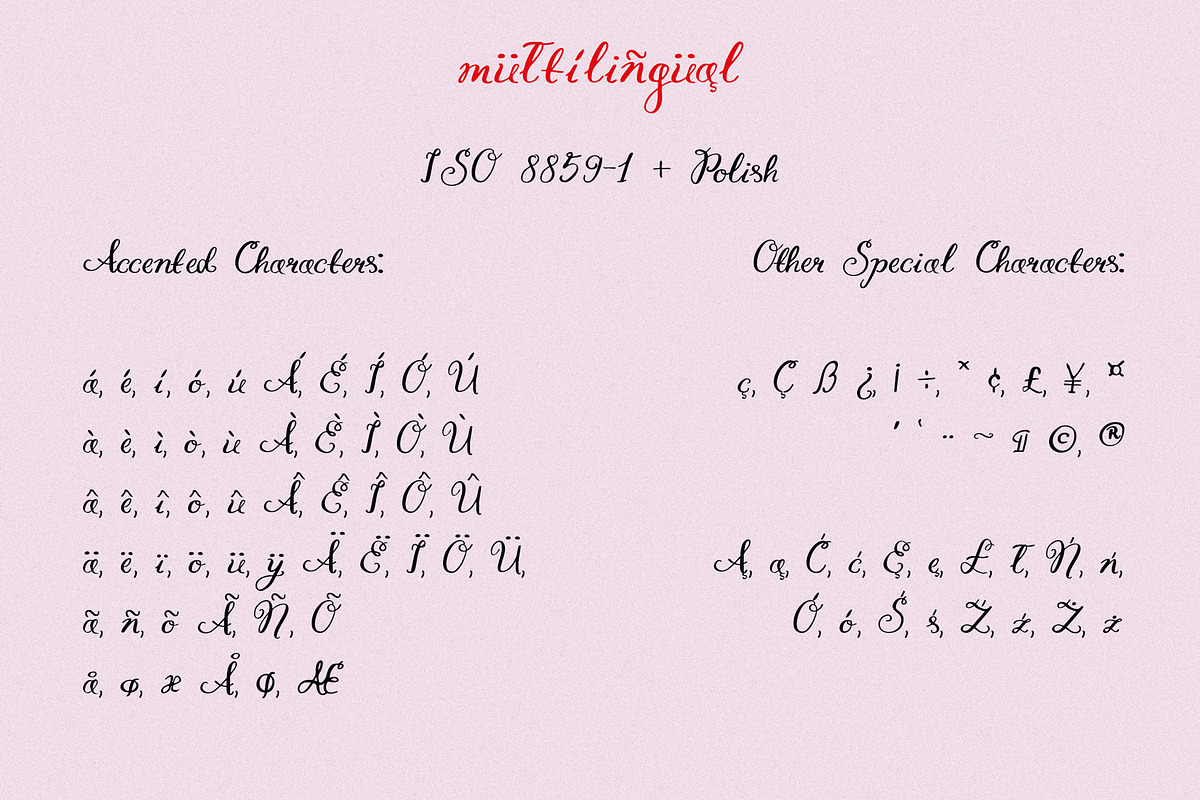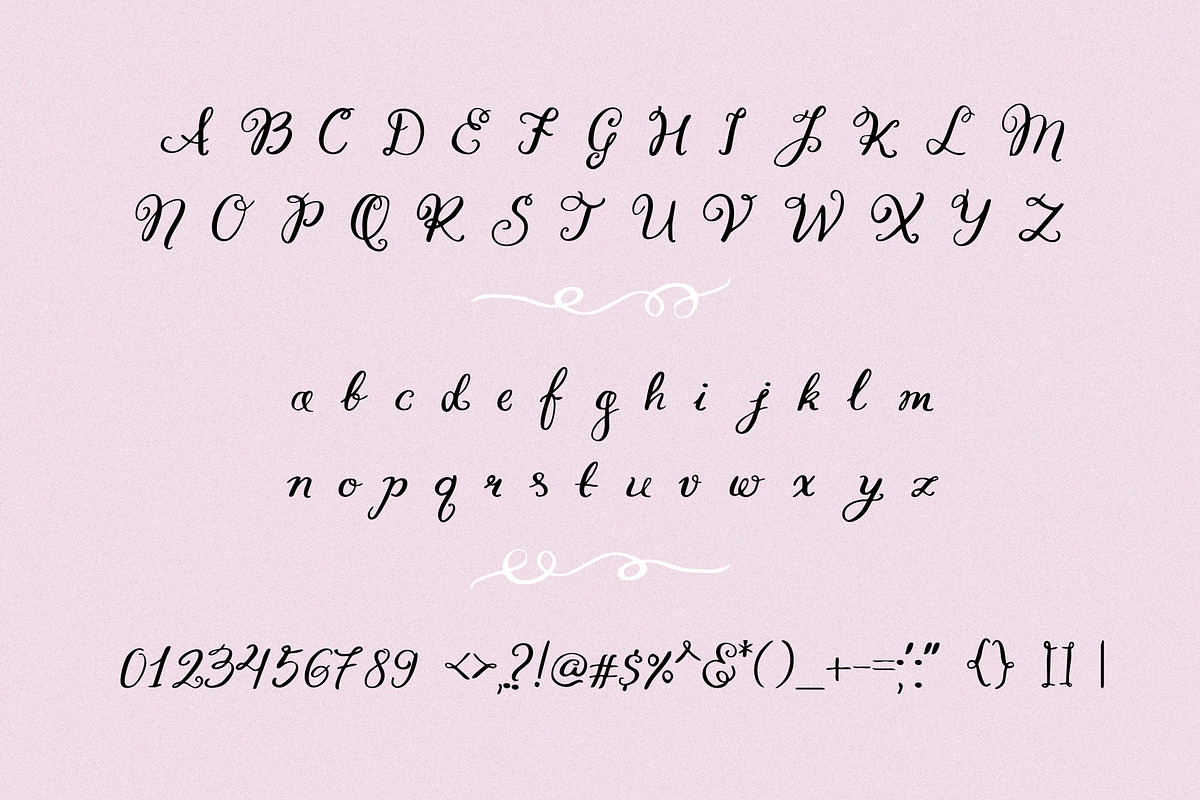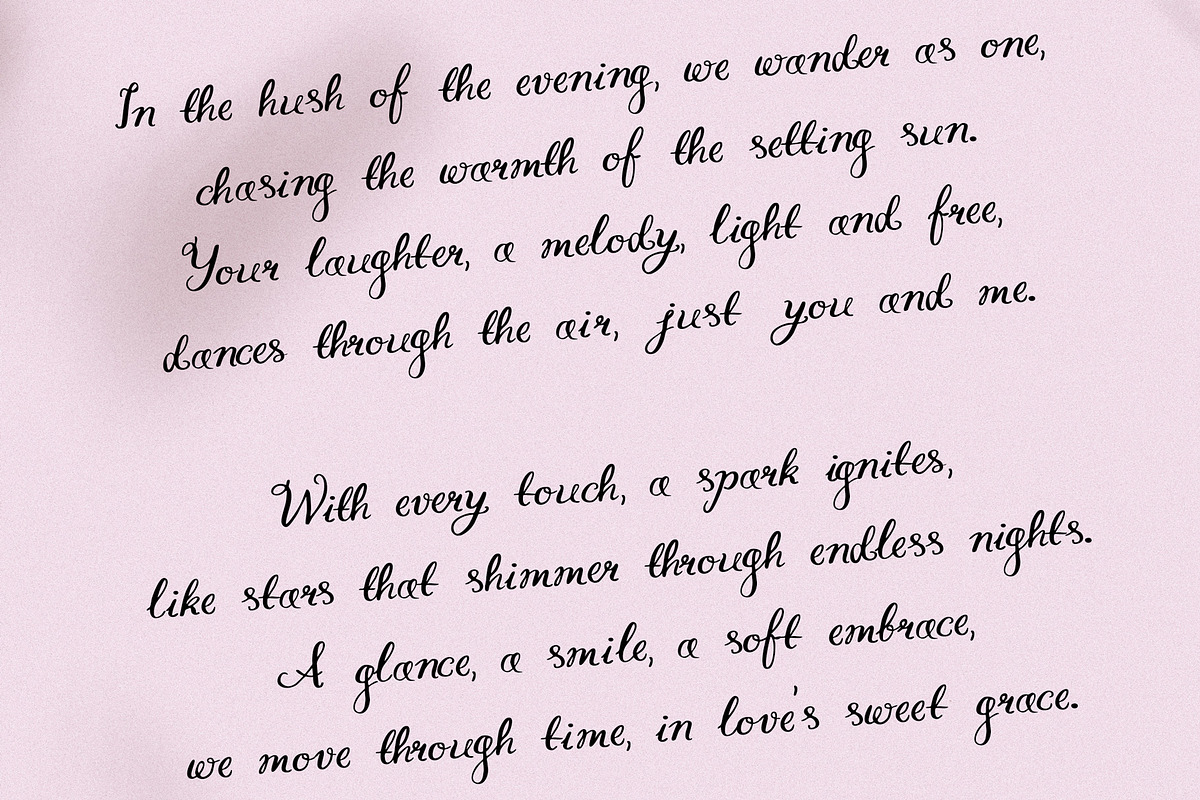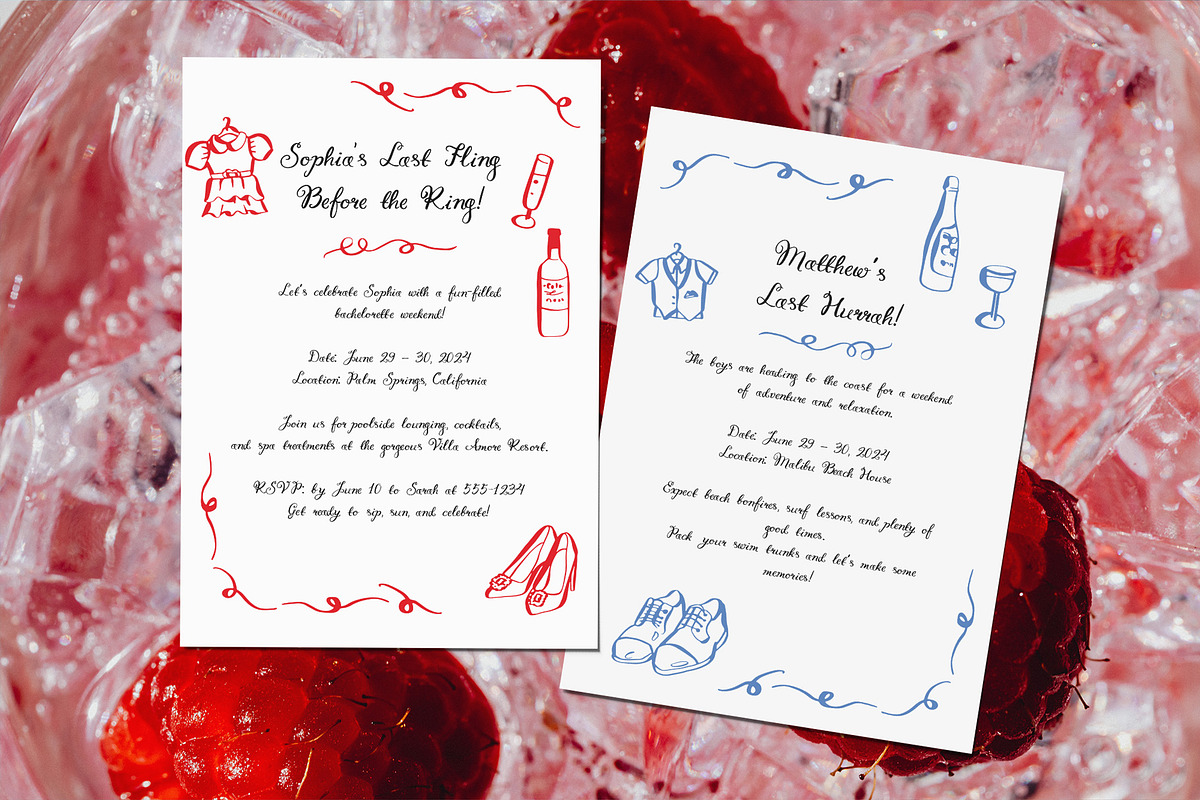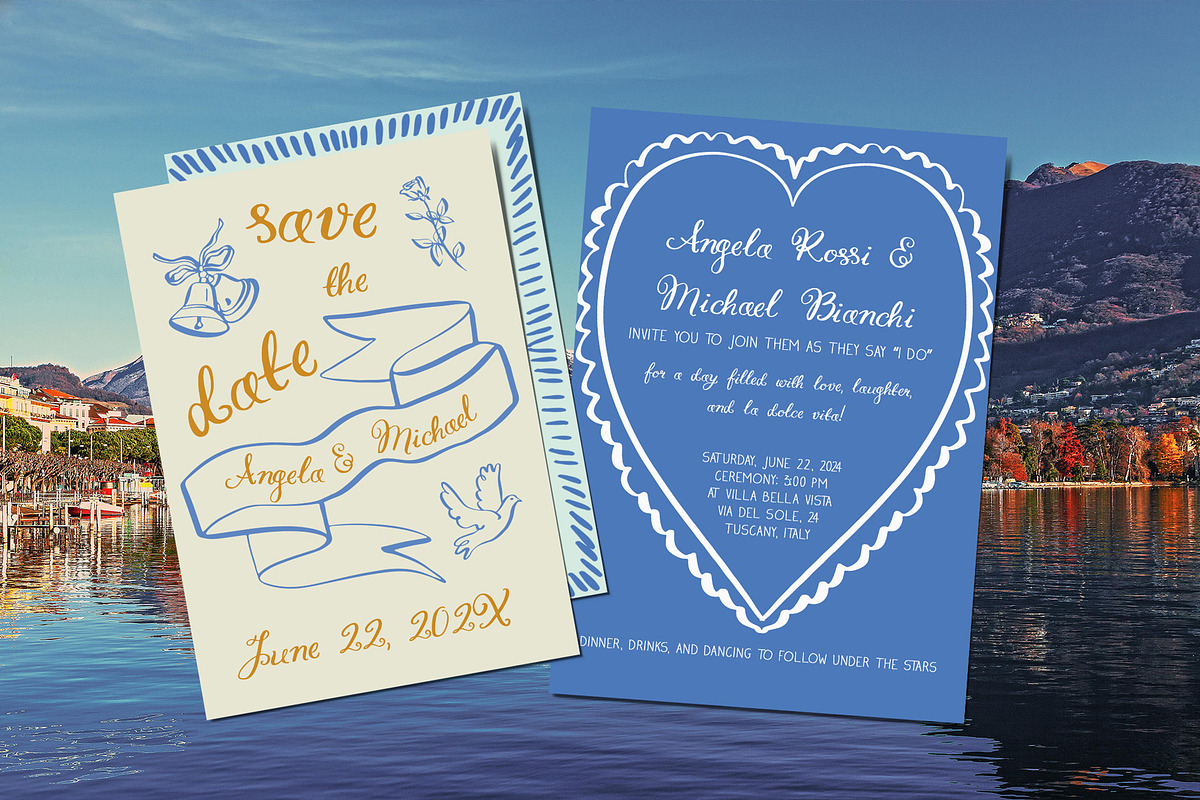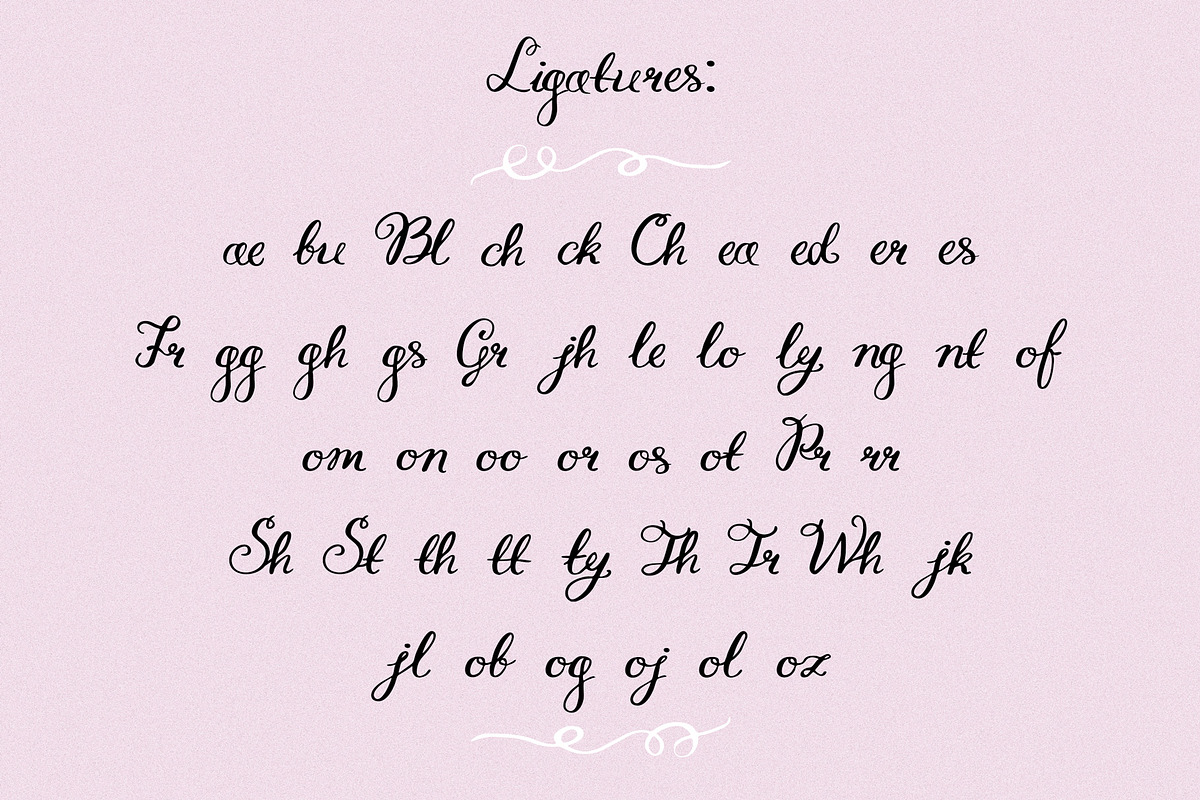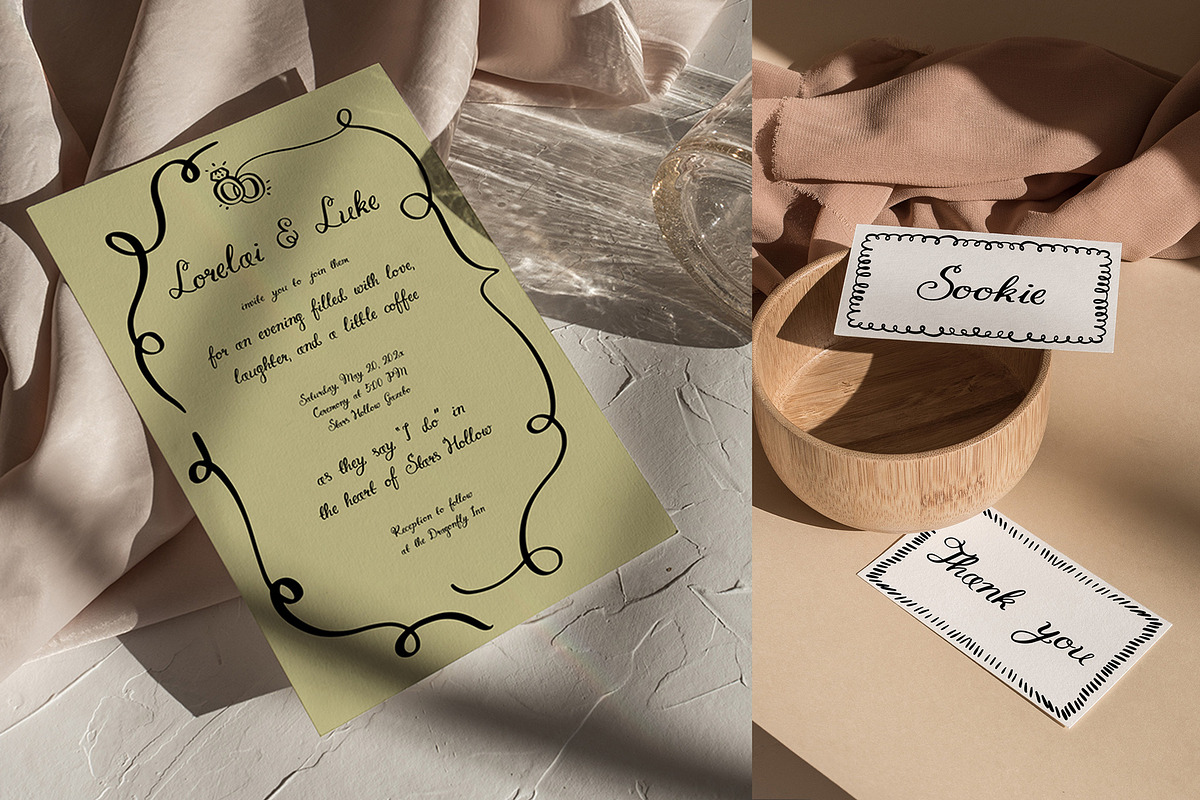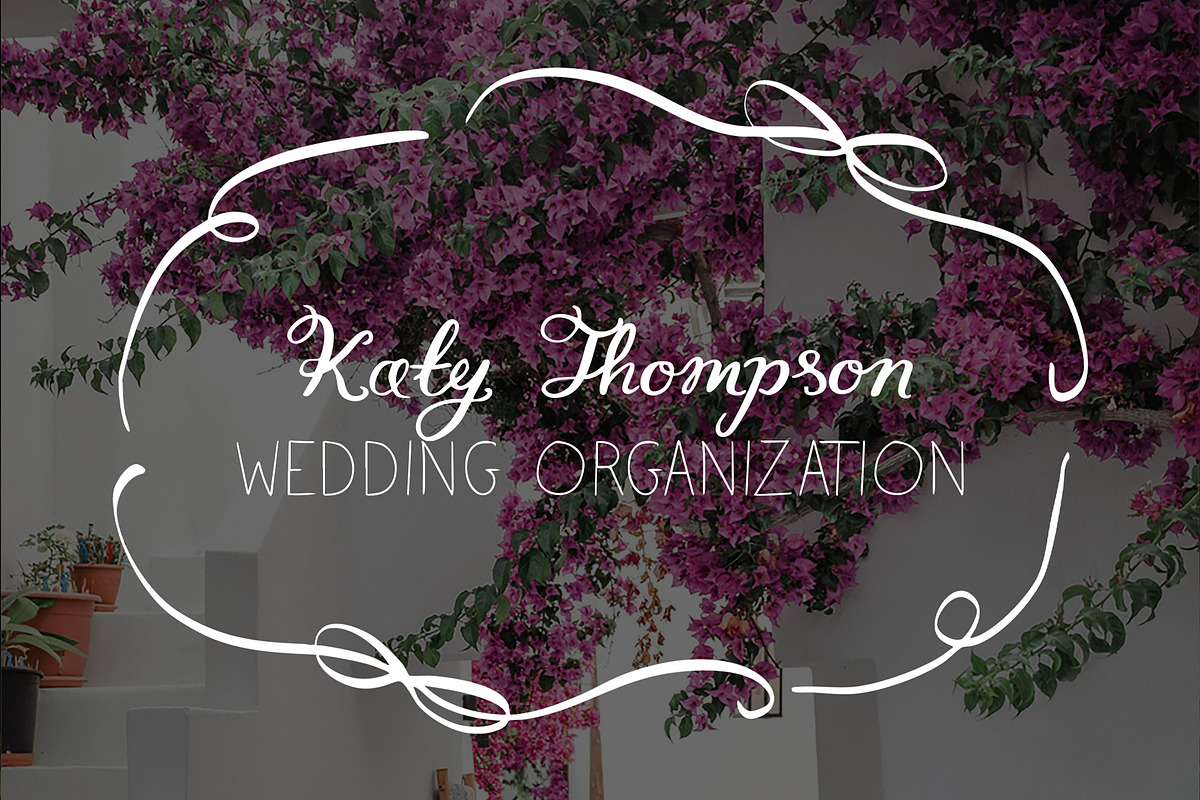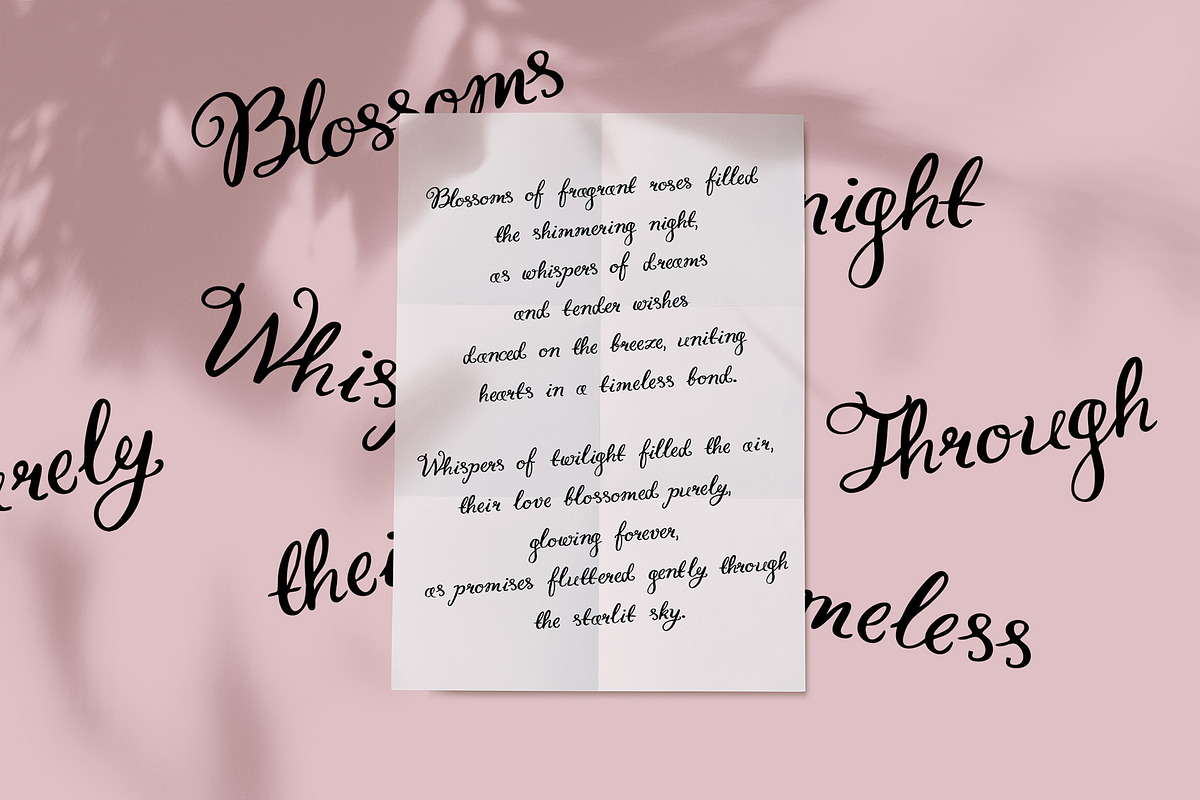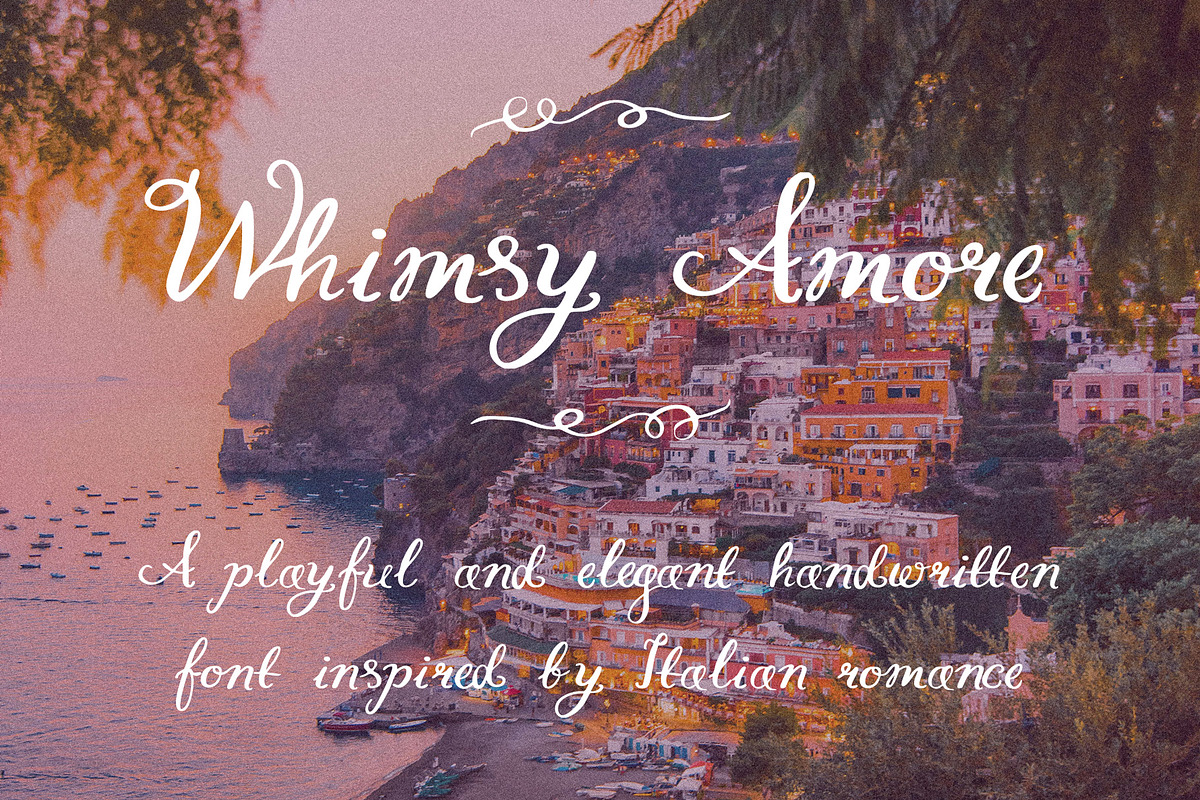
Whimsy Amore Handdrawn Ligatures
Whimsy Amore is a playful and elegant handwritten font that dances across the page with light, graceful strokes and a touch of romance. Whimsy Amore features a delightful collection of ligatures and supports multiple languages.
Perfect for wedding invitations, this font brings a charming Italian-inspired flair with its whimsical curves, delicate flourishes, and a wealth of unique ligatures that add extra personality to each word. Designed to feel alive with character, Whimsy Amore blends fun coquetry with timeless elegance to capture the joy of celebration, making it ideal for any project that celebrates life’s most beautiful moments.